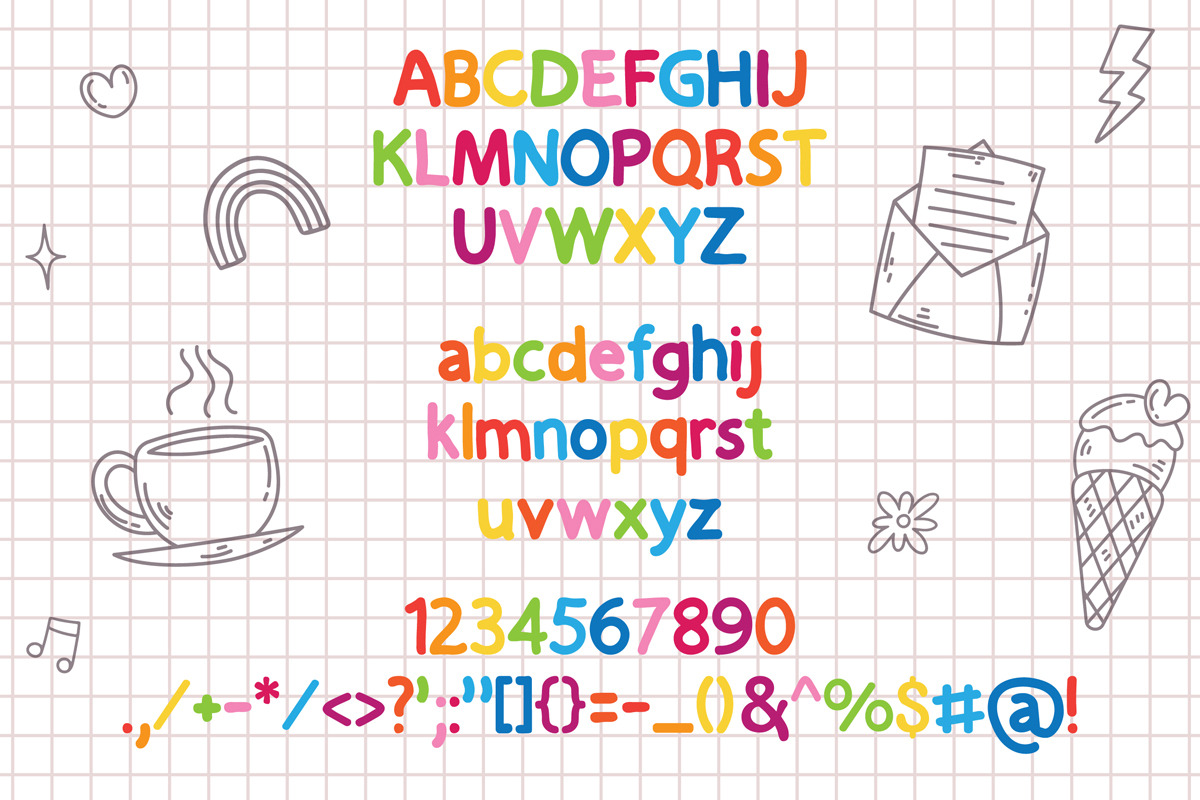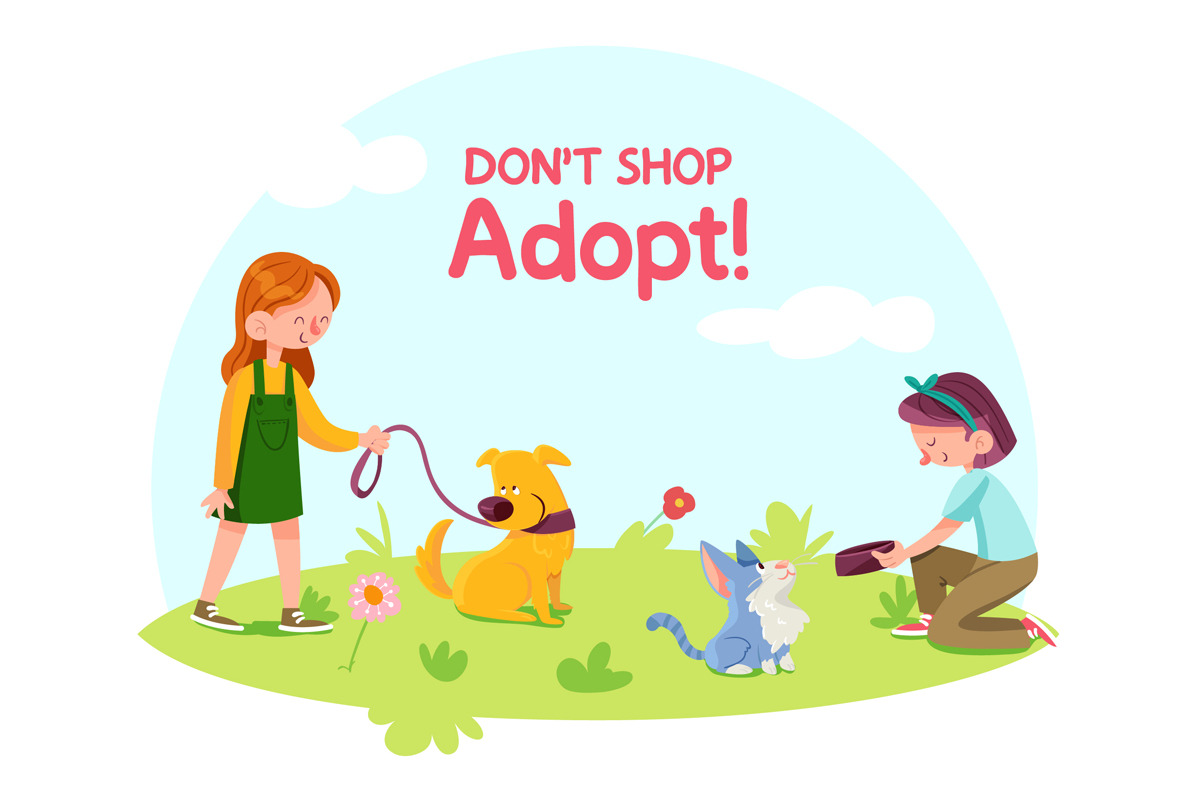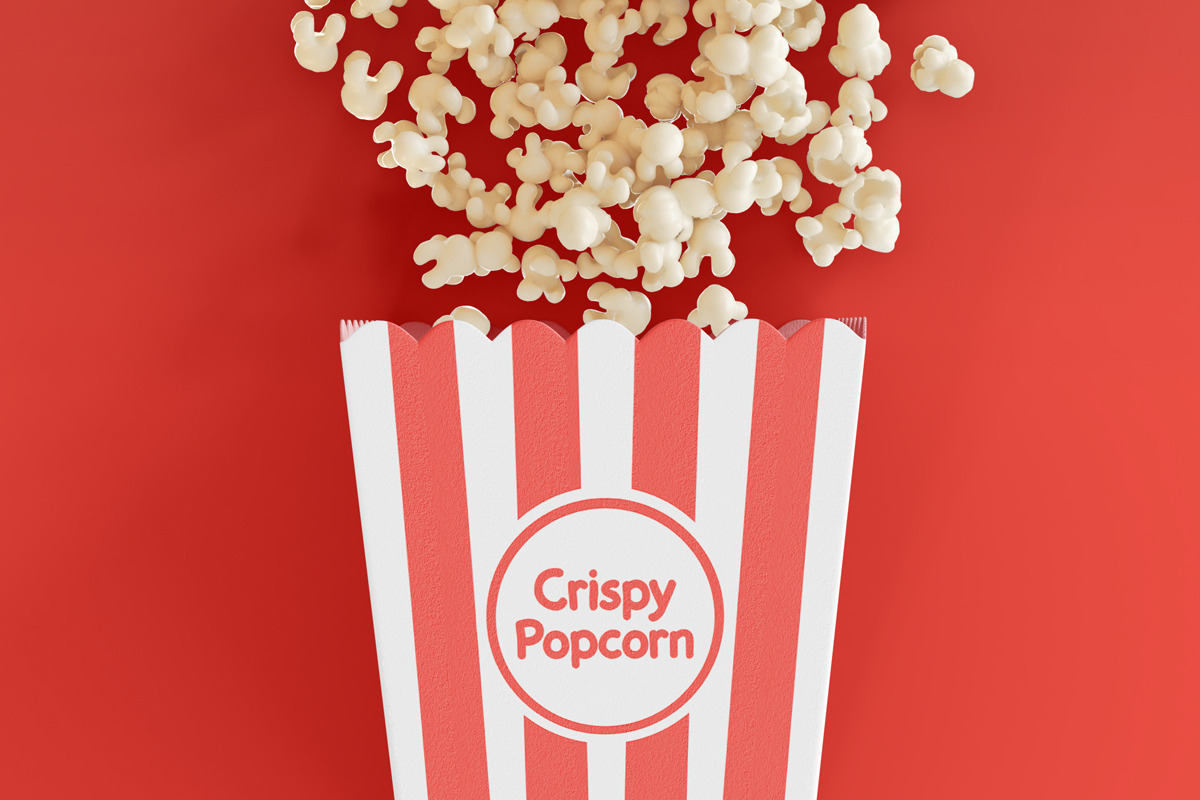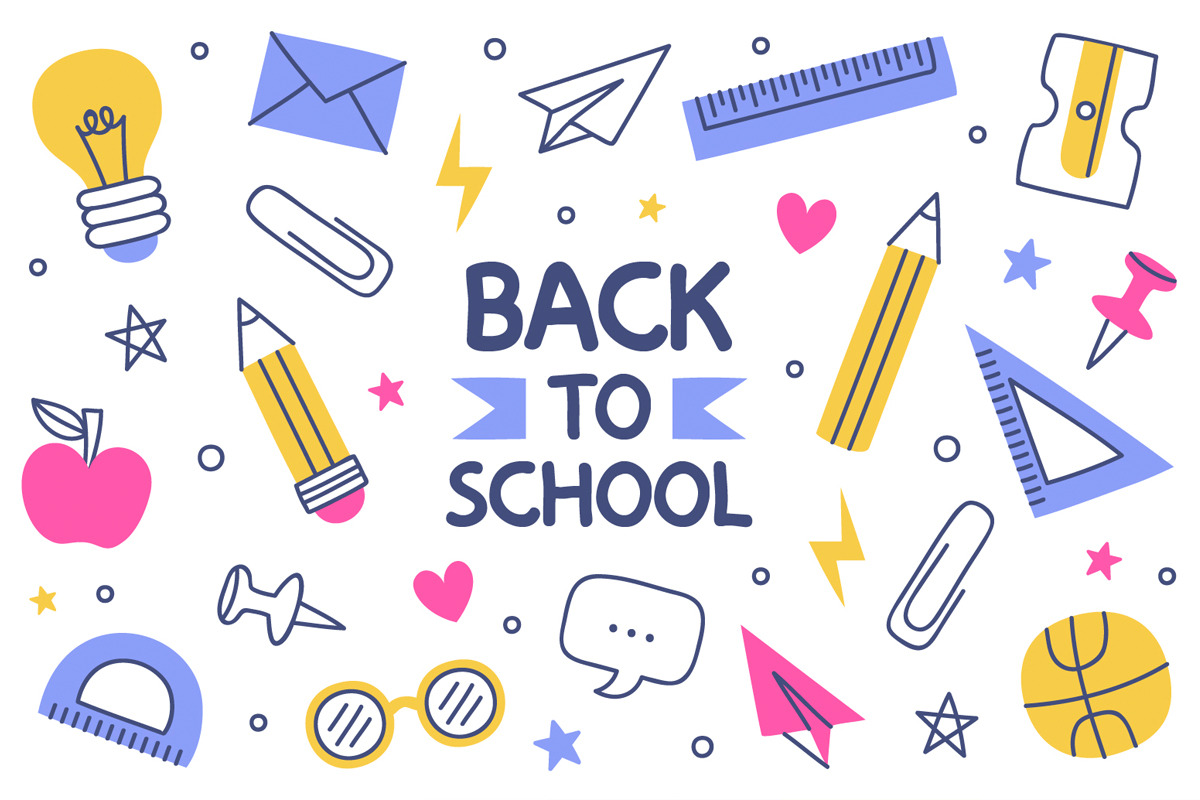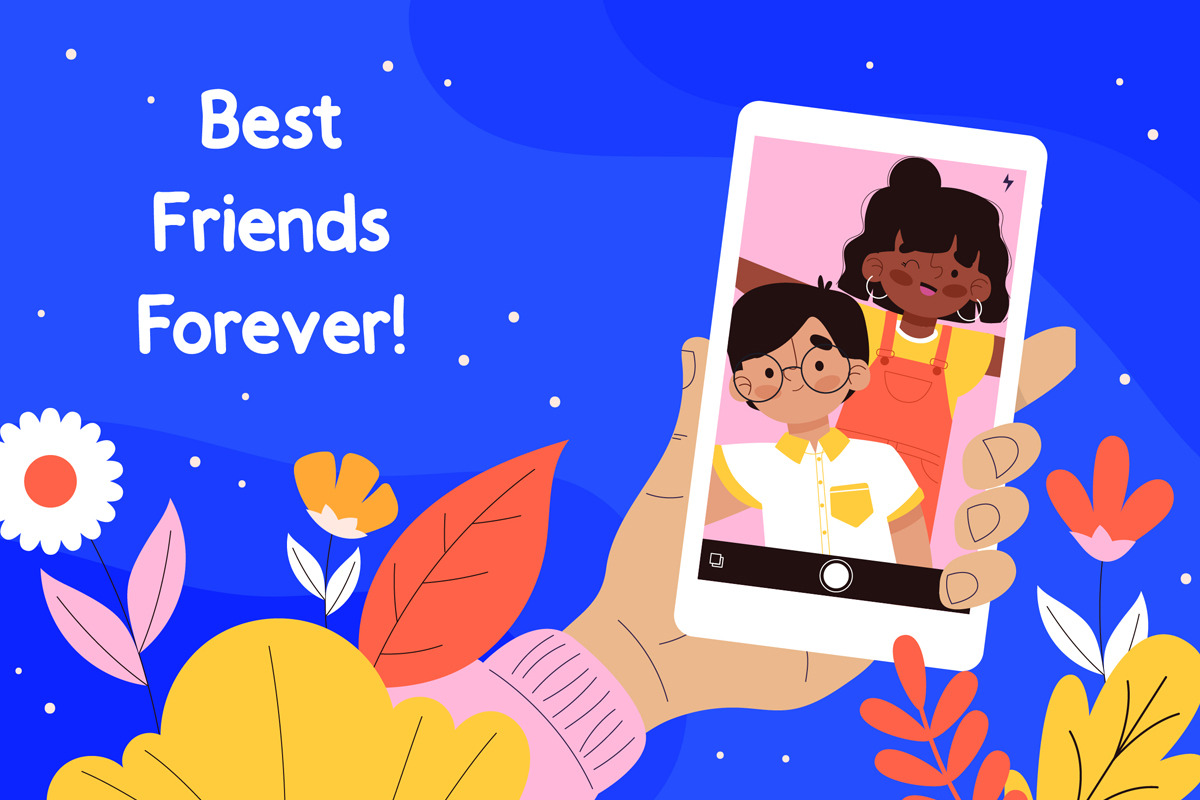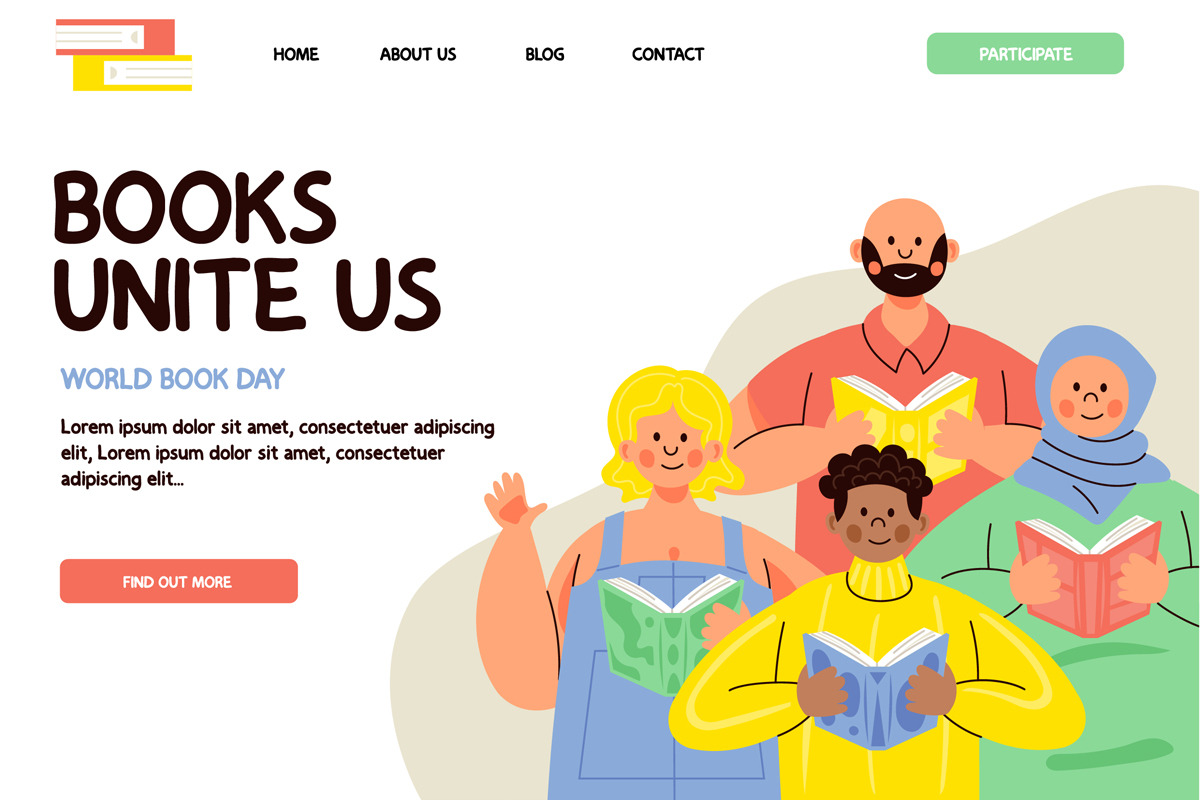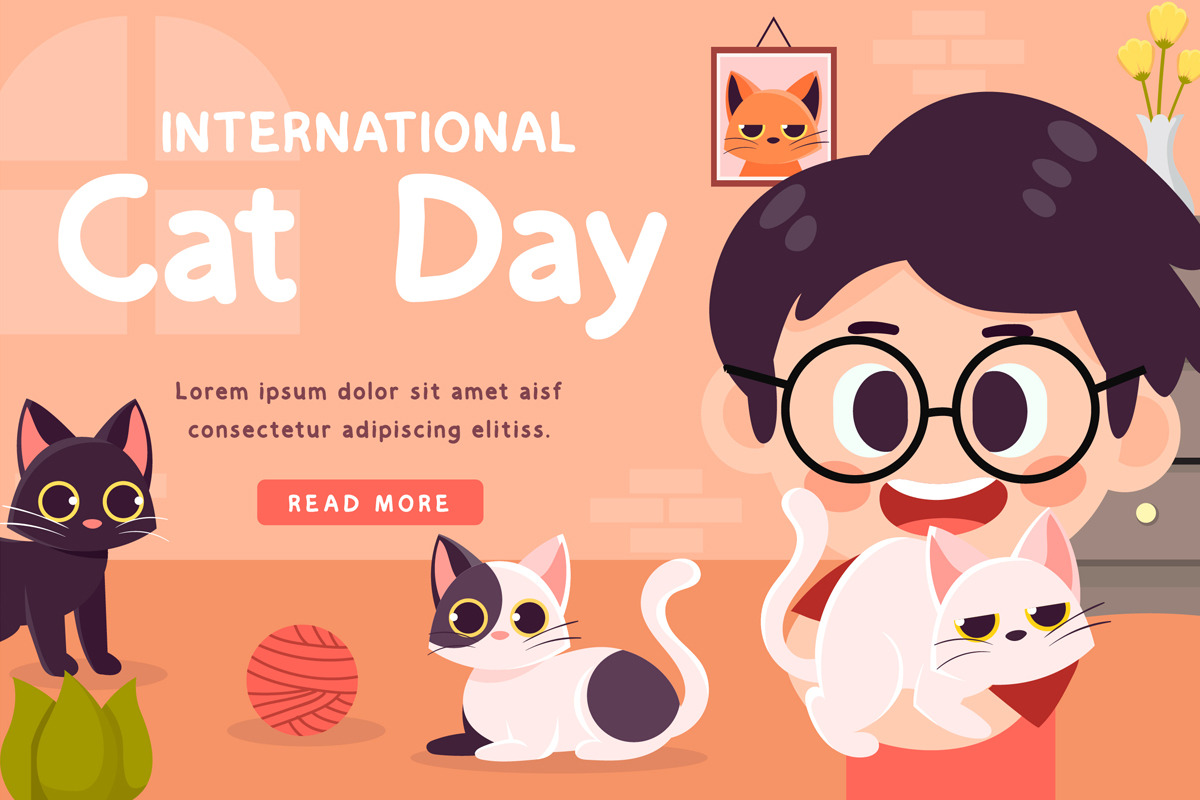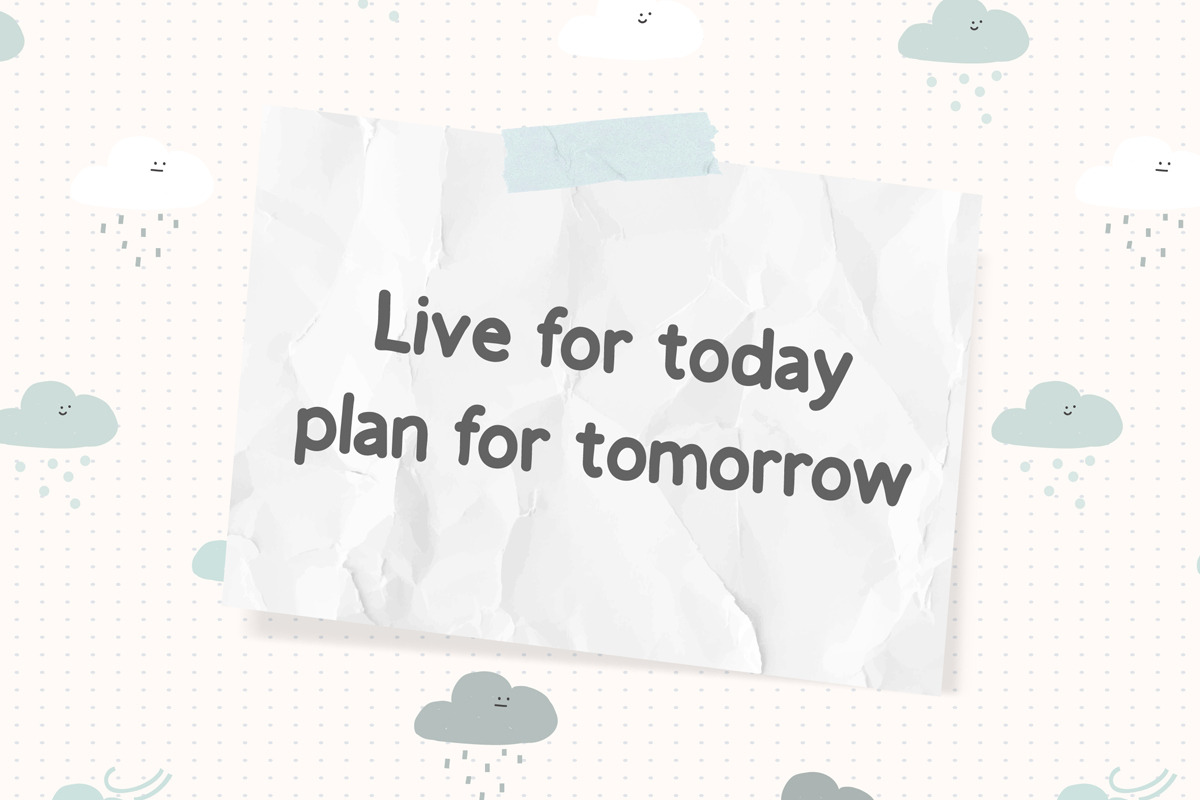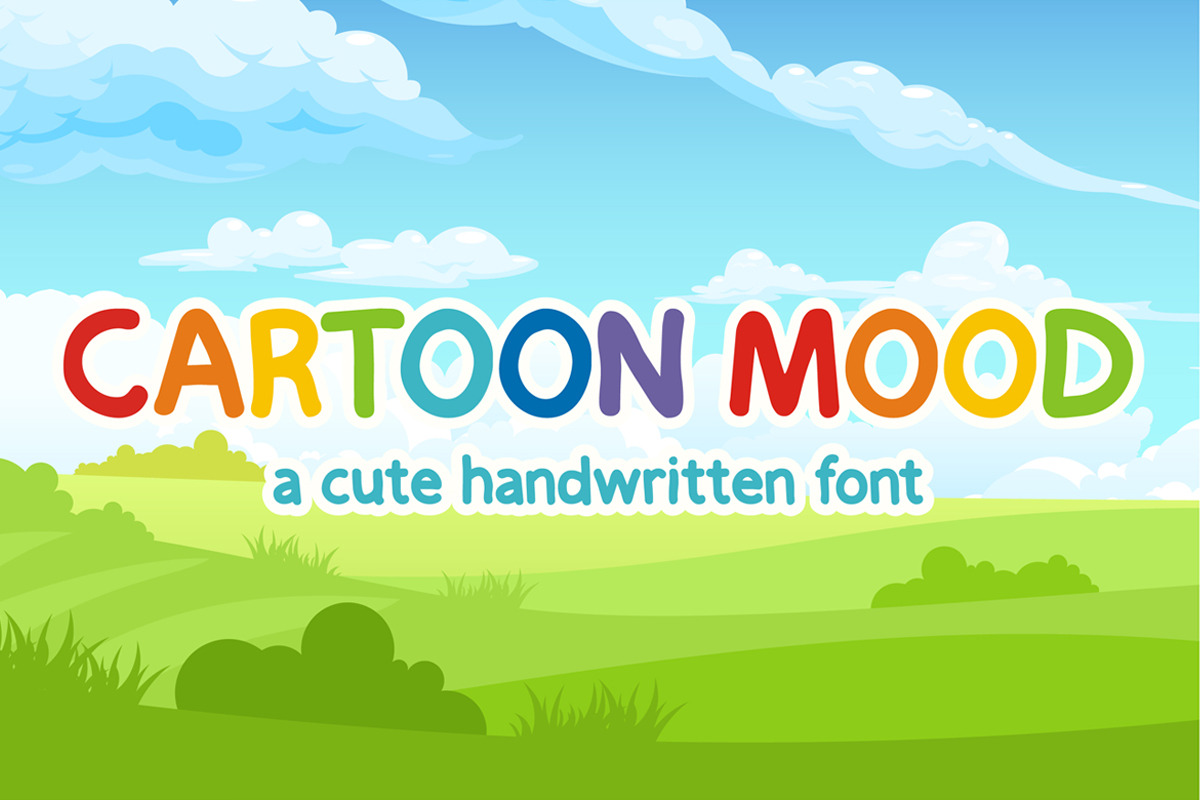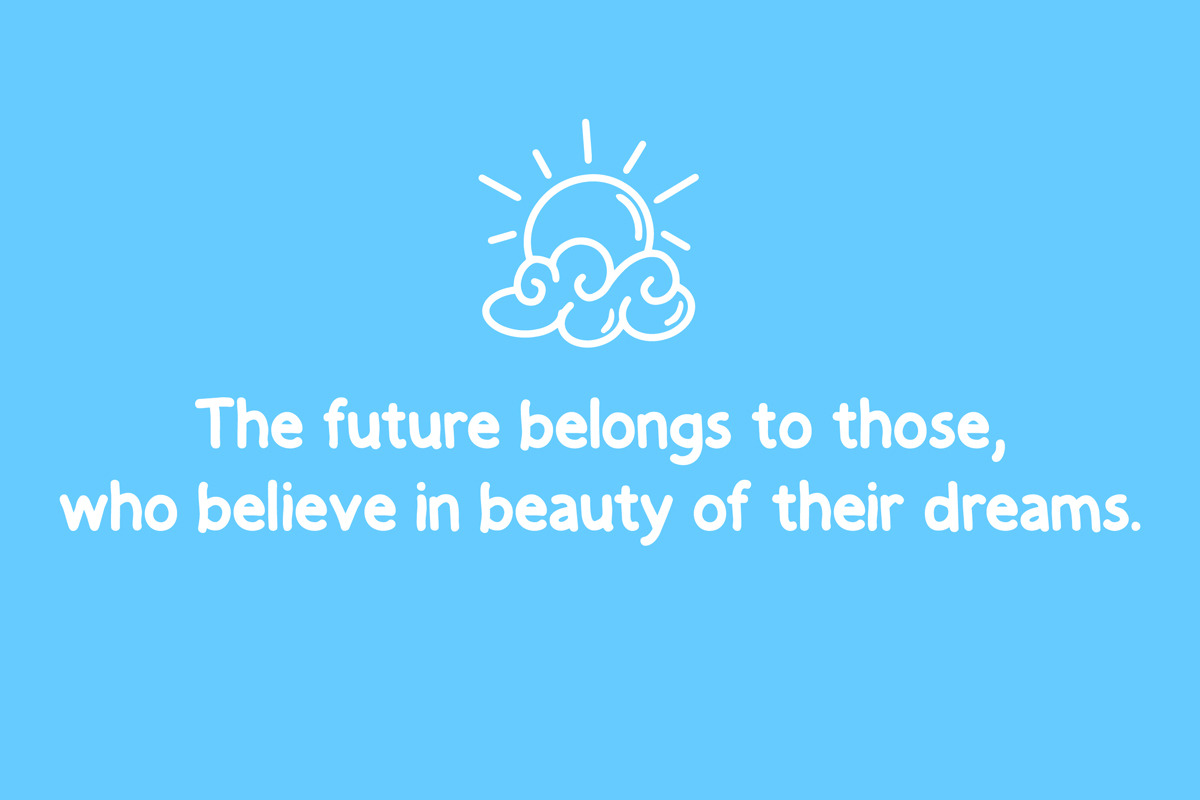
Cartoon Mood Font
Cartoon Mood is an attractive and bright handwritten font that adds a cheerful touch to your designs. Ideal for creating a playful and lively look in branding, children-related designs, and eye-catching headlines.
- Uppercase Characters
- Lowercase Characters
- Numbers and Punctuation